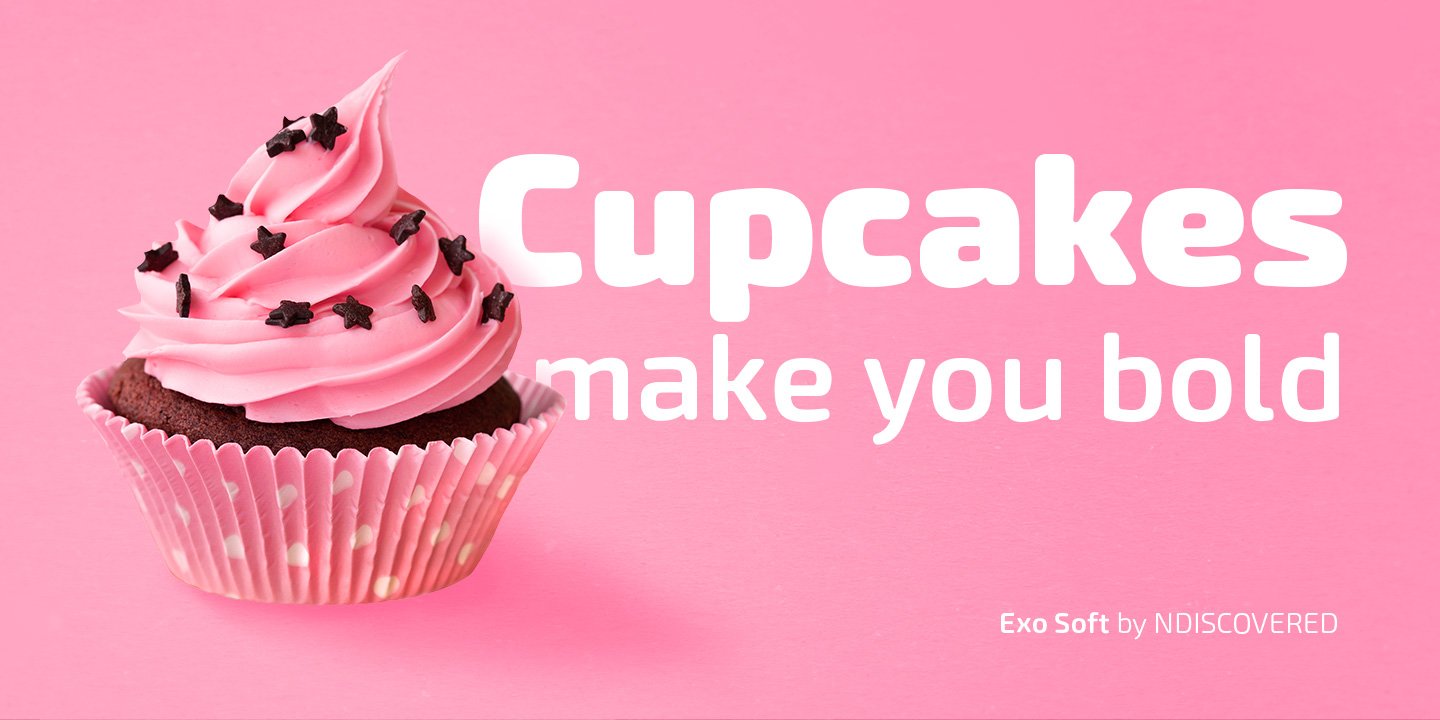
Exo Soft Font Free Download is an incredibly modern and friendly sans-serif typeface, perfect for a wide range of contemporary design projects that aim for a clean, approachable, and high-tech feel. Imagine it enhancing sleek startup branding, intuitive app interfaces, dynamic website design, or innovative product packaging. Its rounded corners and balanced proportions also make it an excellent choice for engaging children's educational materials, comfortable e-reading applications, and soft, inviting marketing collateral. Whether your goal is to convey cutting-edge technology with a human touch, modern simplicity, or clear readability, Exo Soft Font offers the stylistic foundation to elevate your creative vision.
What makes Exo Soft Font truly exciting is its unique blend of futuristic geometry and approachable warmth. The subtle rounding of its edges softens its modern lines, making it highly legible and easy on the eyes, even in dense text or at small sizes. This isn't just another geometric sans-serif; it's a meticulously crafted font that brings a unique combination of innovation and user-friendliness to any text. Designers will appreciate its strong visual appeal and how it can instantly bring a cohesive and refined yet inviting look to any project, making it a reliable choice for designs that demand both aesthetic quality and practical performance in modern digital and print contexts.
The Exo Soft Font family is typically comprehensive, offering an extensive range of weights to ensure maximum versatility across diverse design needs. You can generally expect to find a full spectrum of weights, from Thin and Light to Regular, Medium, SemiBold, Bold, ExtraBold, and Black, often accompanied by their corresponding italic versions. This broad array allows for superb typographic hierarchy within your designs, enabling you to create dynamic and engaging visual compositions that maintain a consistent, high-quality aesthetic, whether for striking headlines or detailed body text. This comprehensive family ensures that Exo Soft Font Free Download is a valuable asset for any designer.